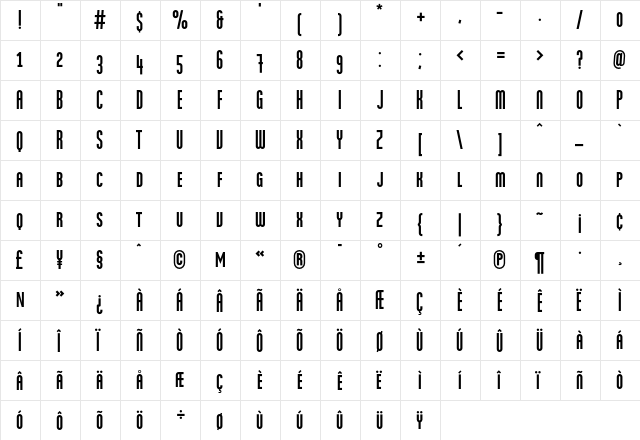
MartenGrotesqueCaps Regular
Design Context for MartenGrotesqueCaps Typeface
MartenGrotesqueCaps offers clean, dependable letterforms without strong stylistic allegiance, making it a practical choice for designers who need flexibility.